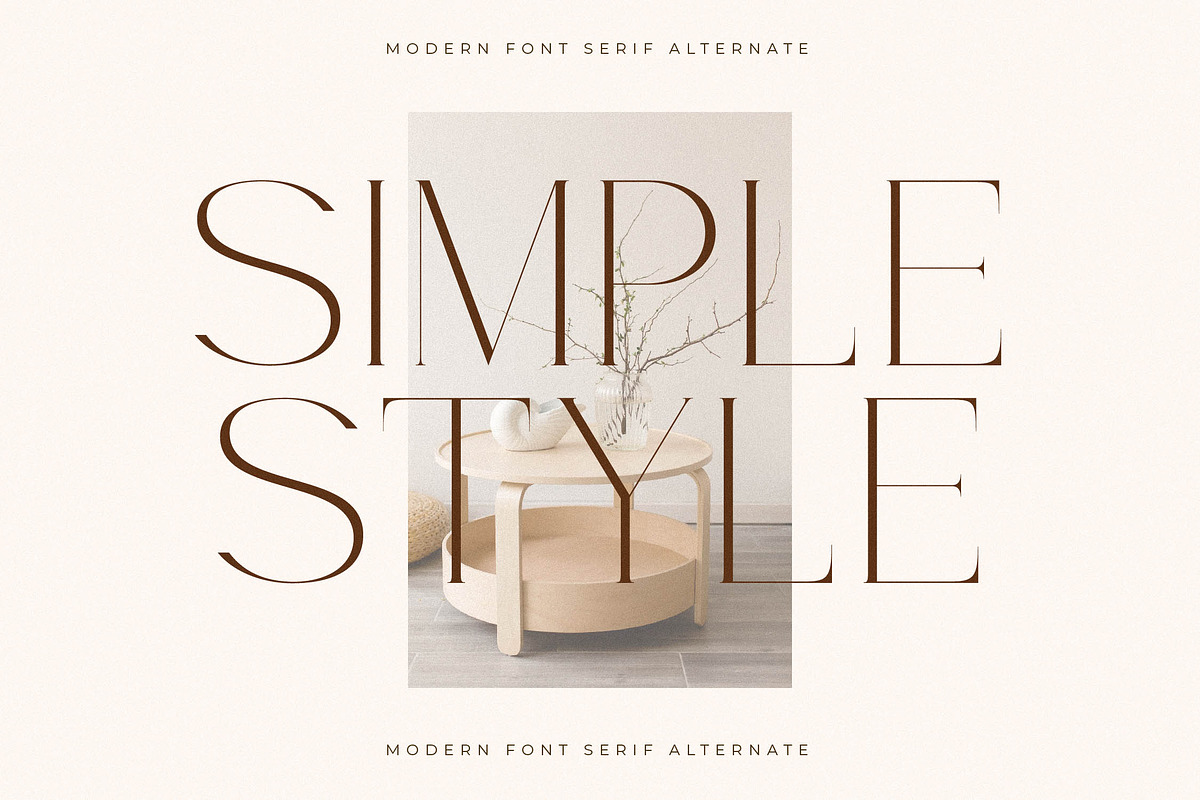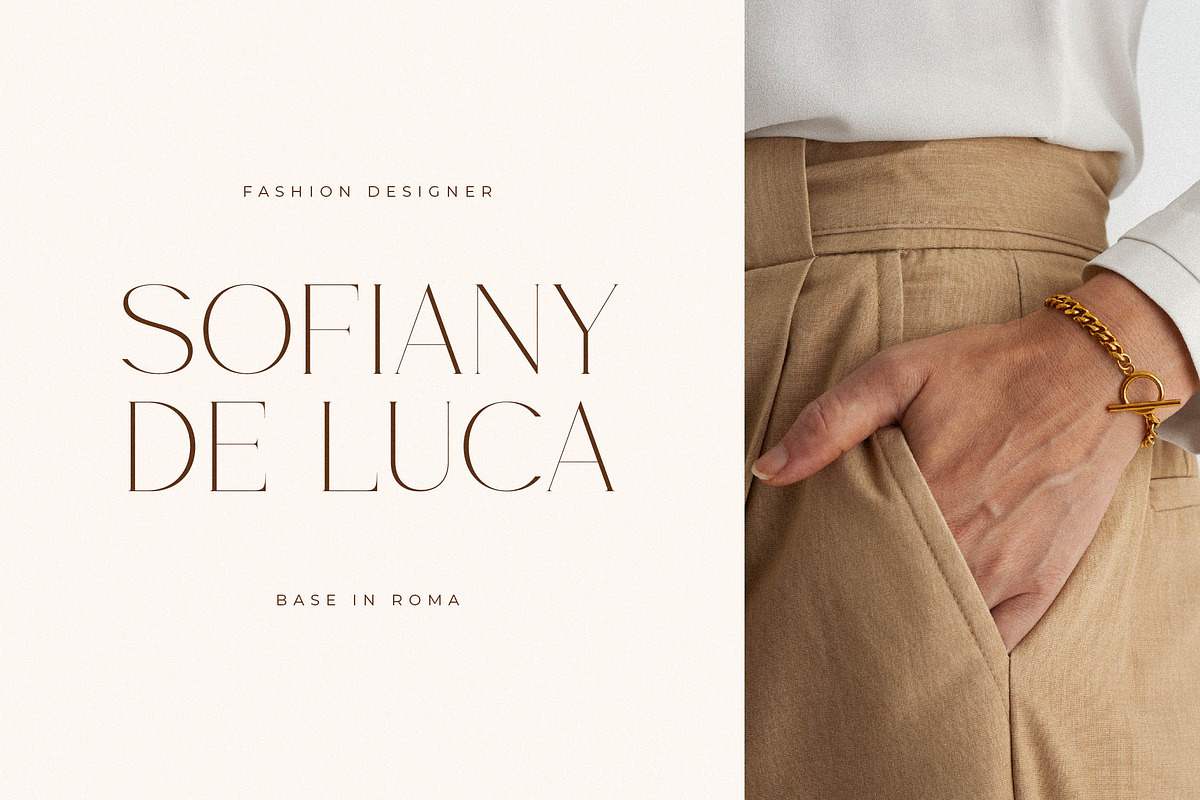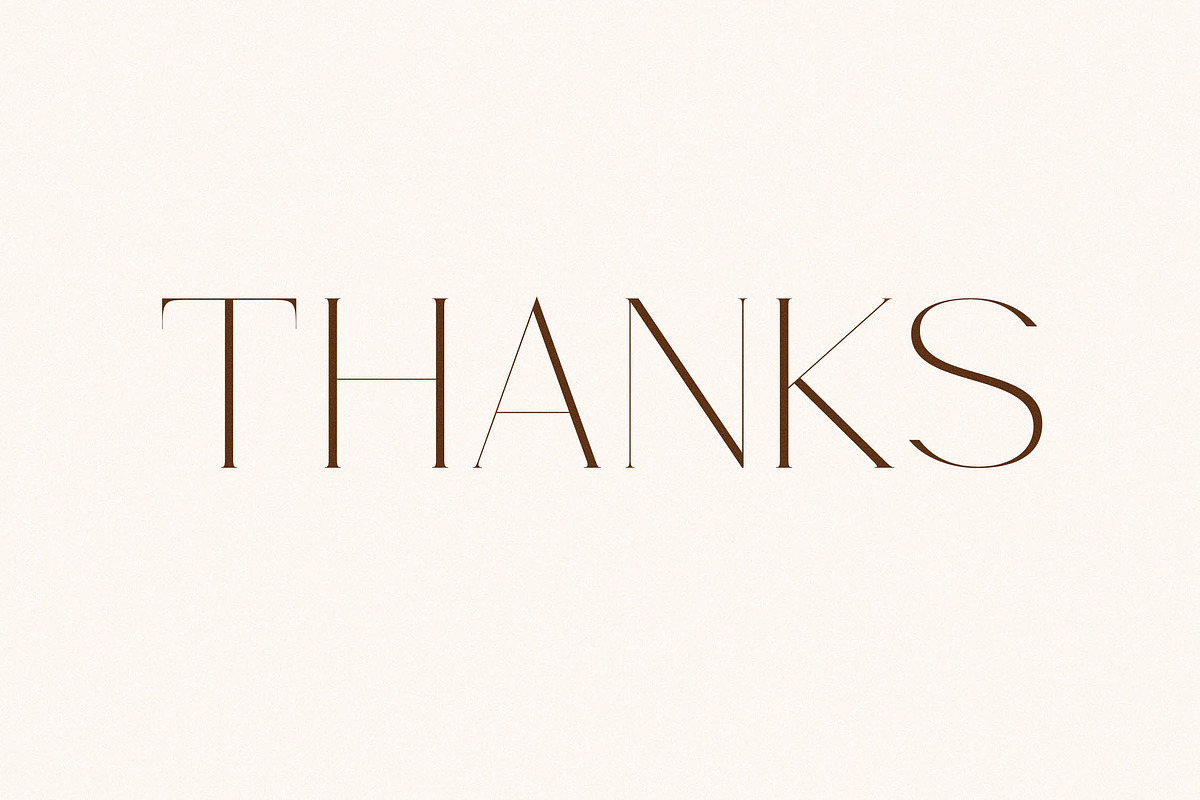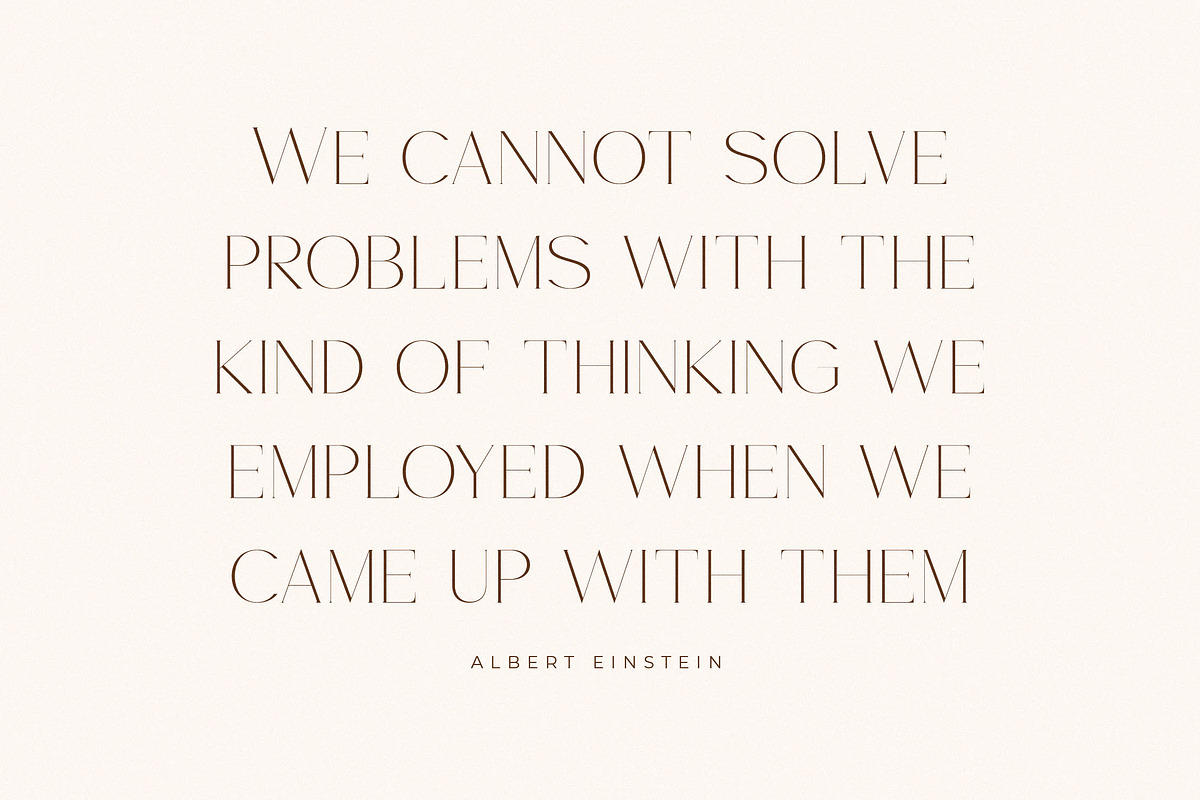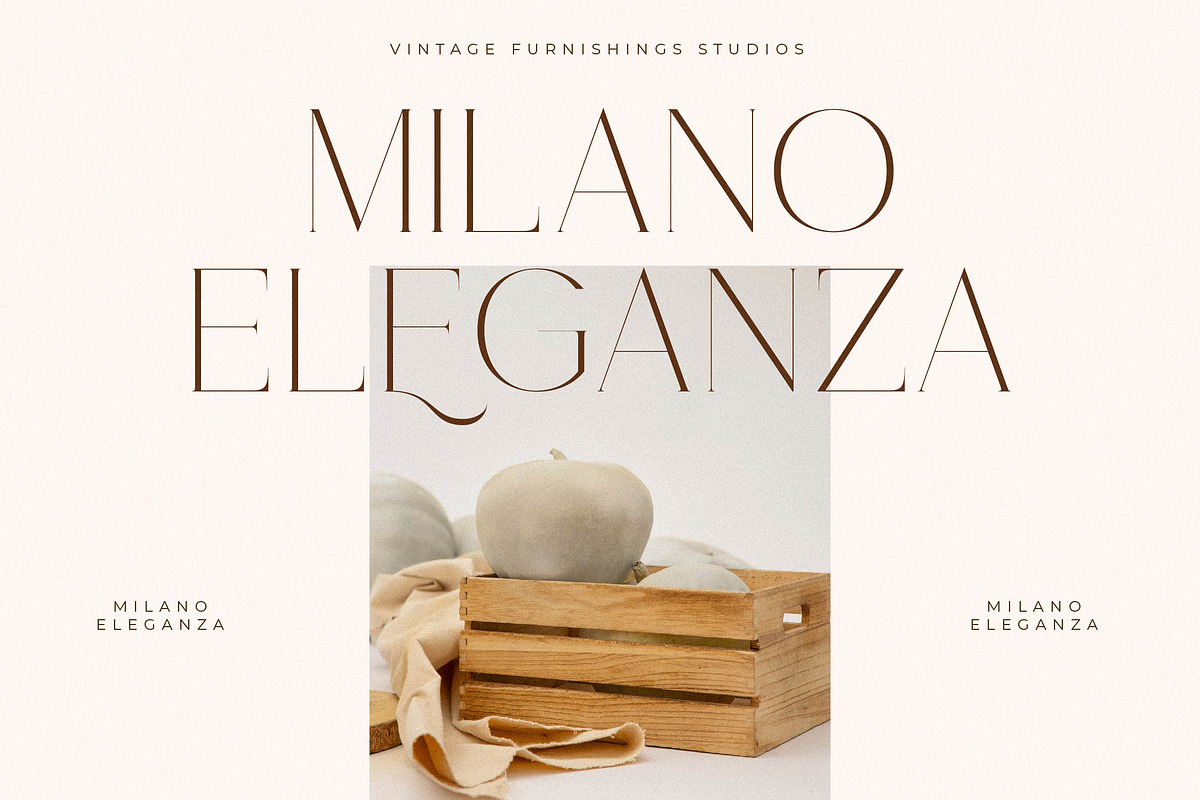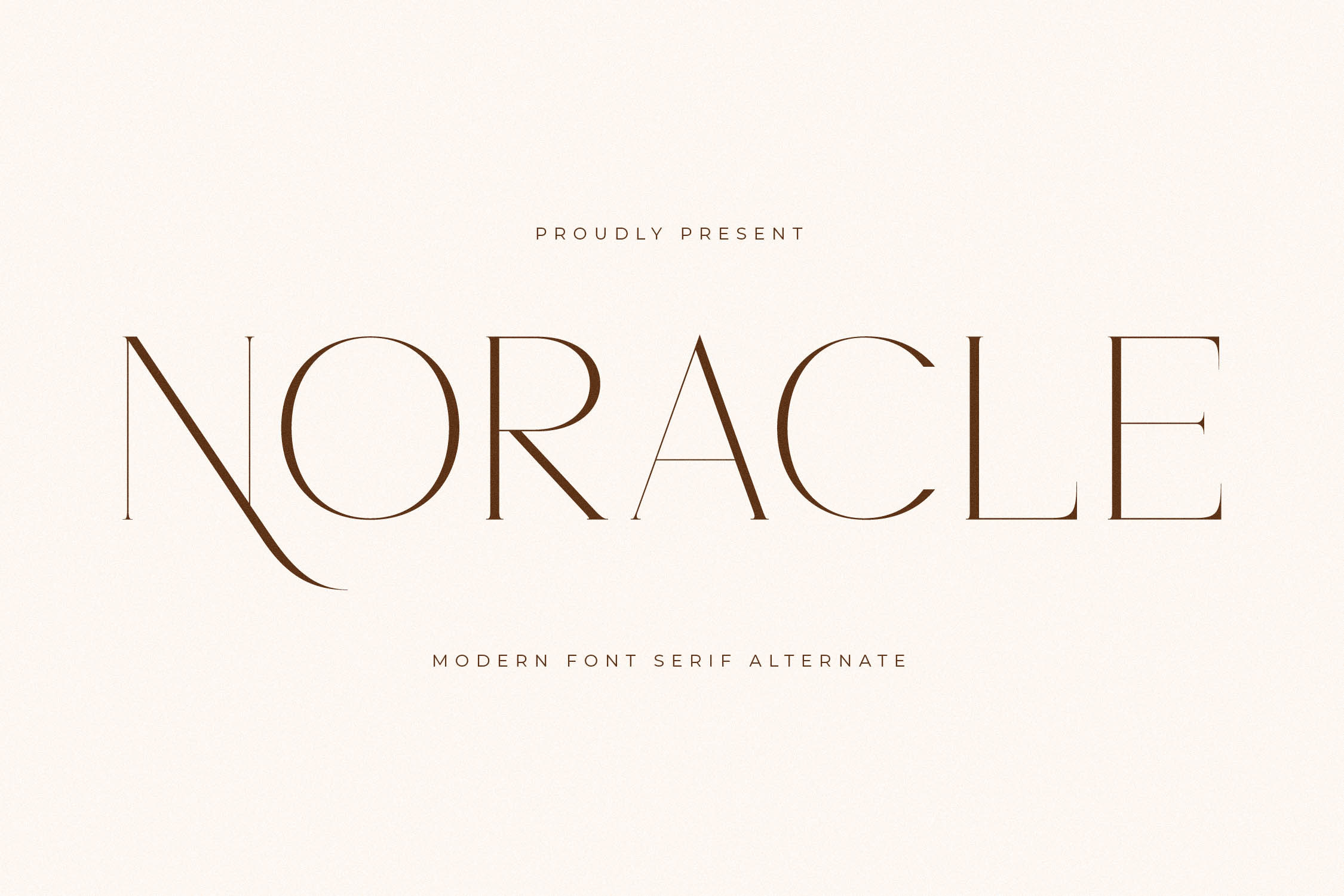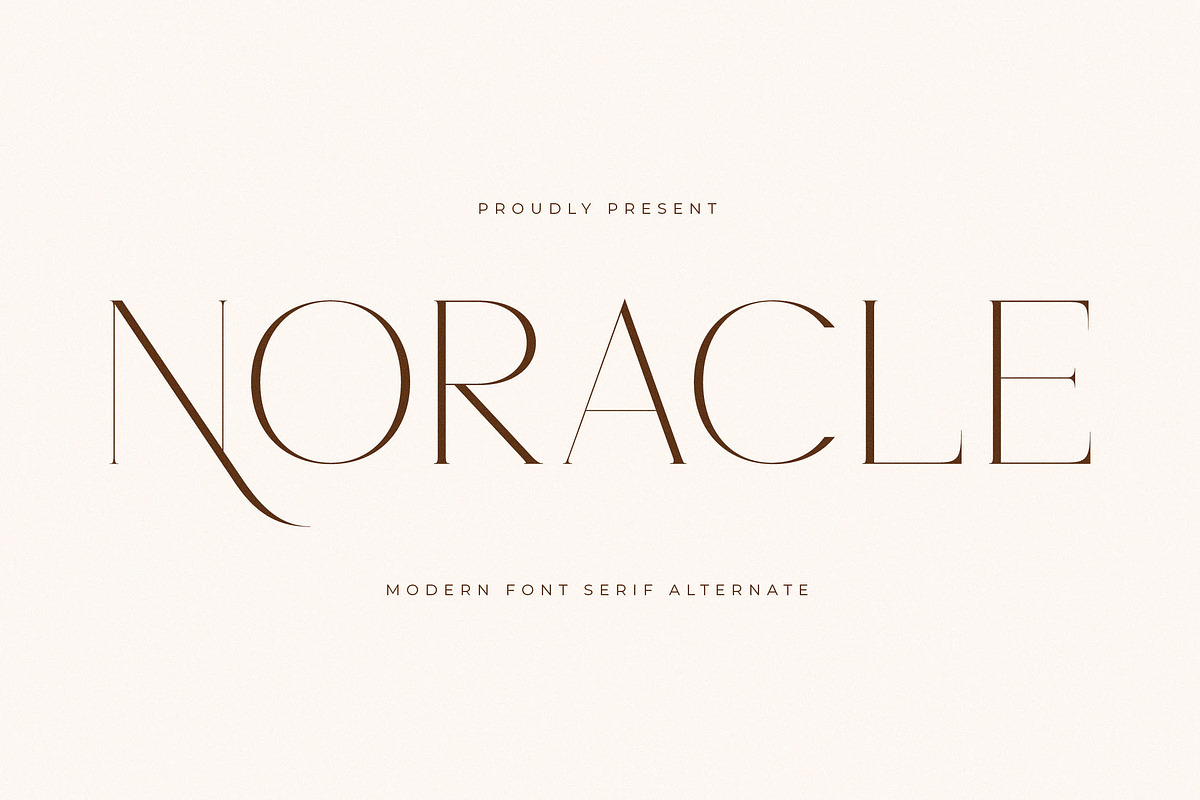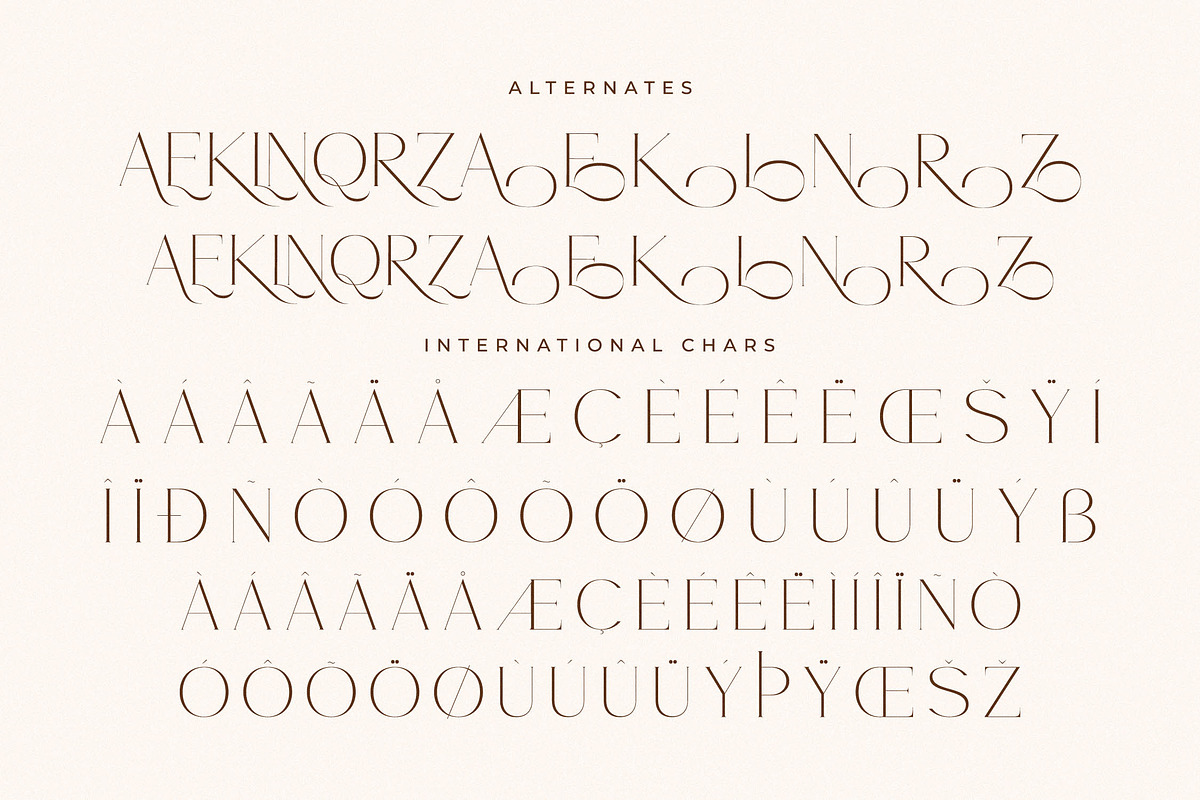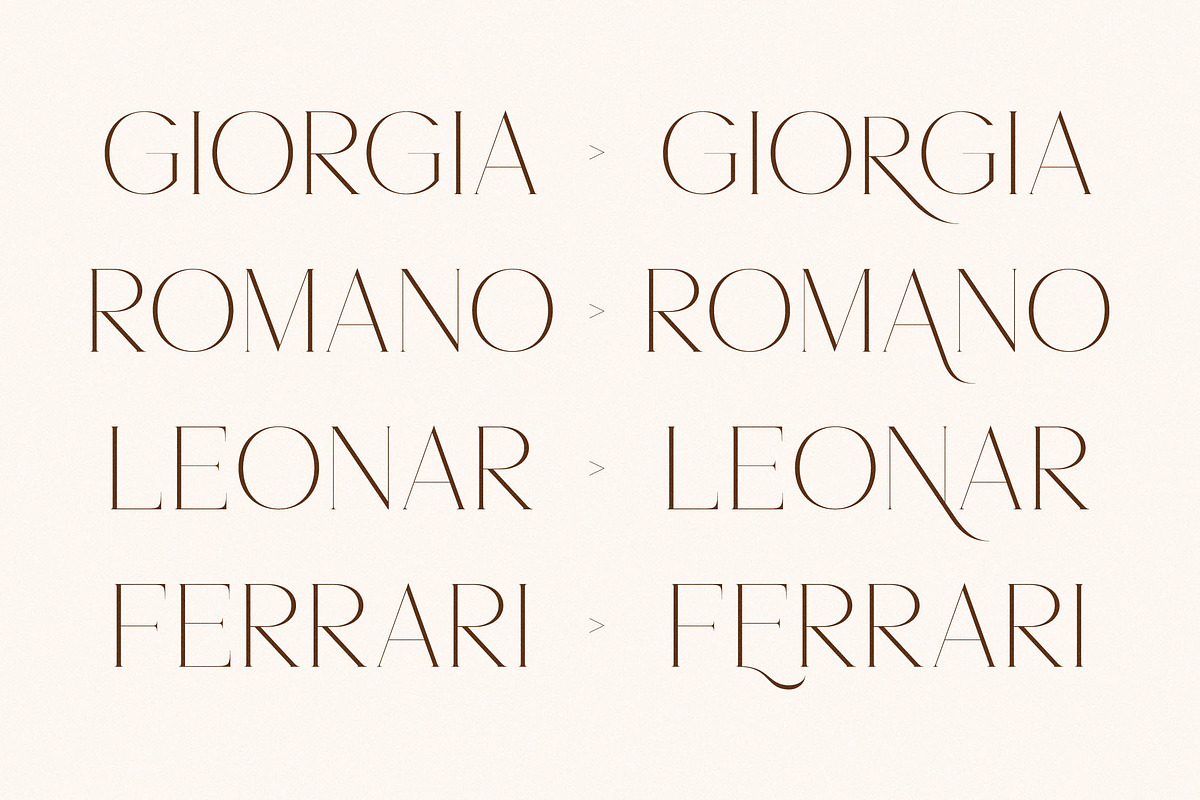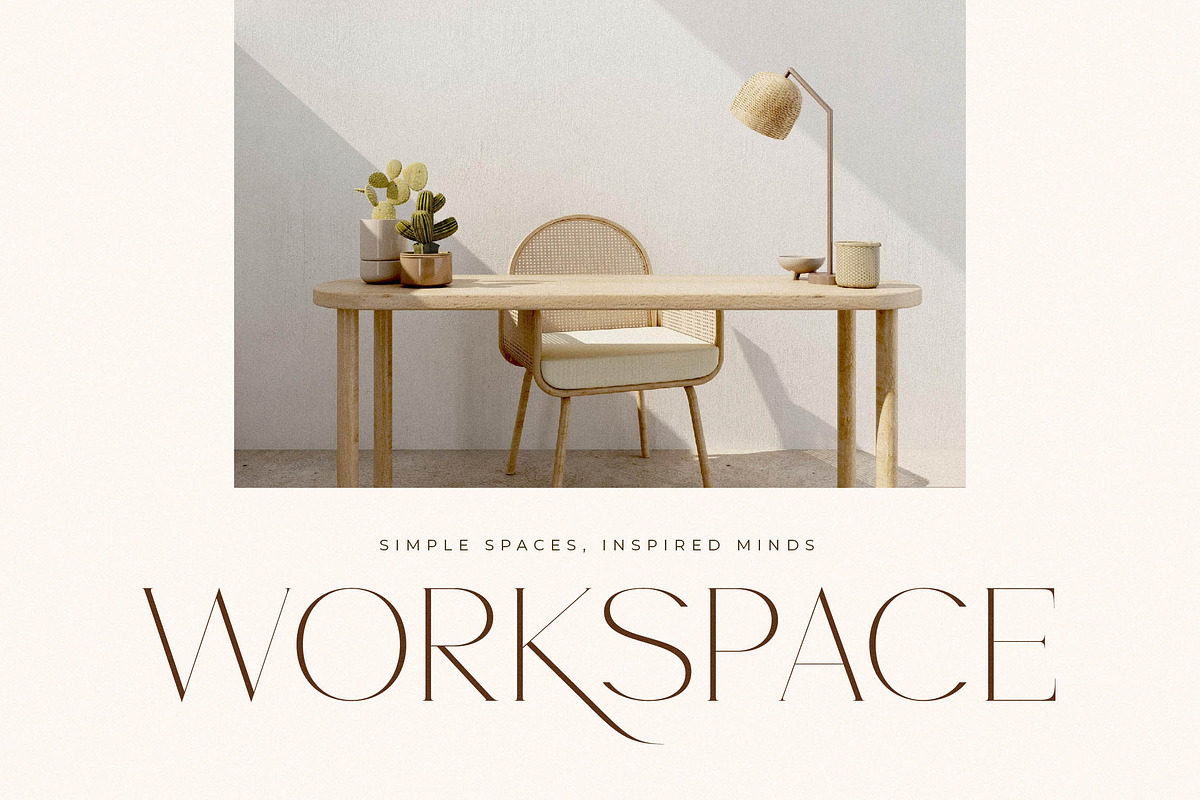
Noracle Modern Font Serif Alternate
Proudly present Noracle Typeface , created by Storytype, A serif modern and classic typeface that has own unique style & modern look. This typeface is perfect for an elegant & luxury logo, book or movie title design, fashion brand, magazine, clothes, lettering, quotes, and so much more.